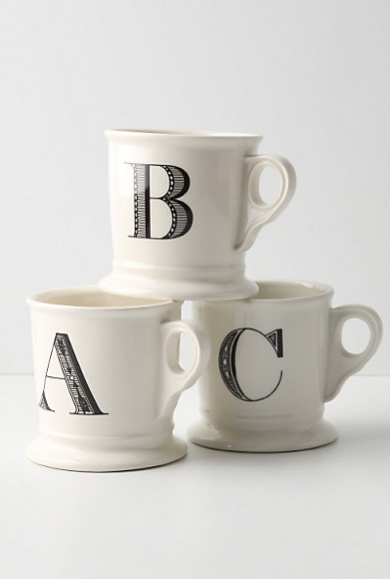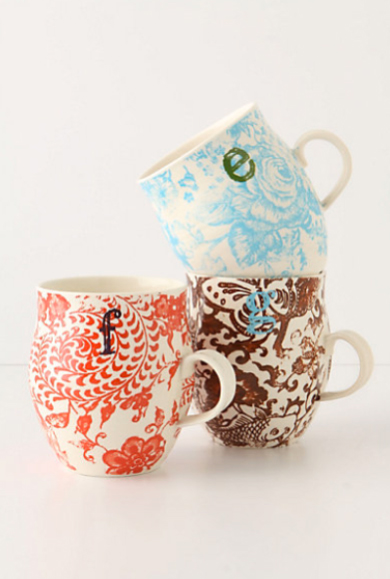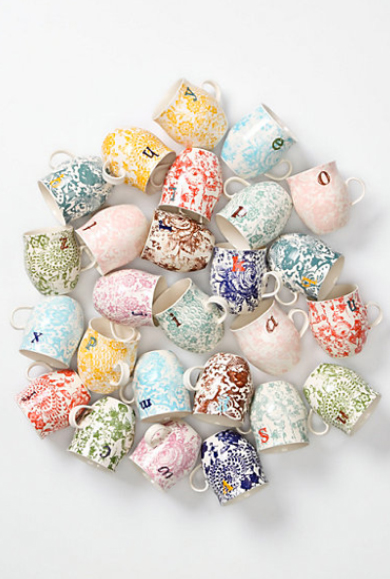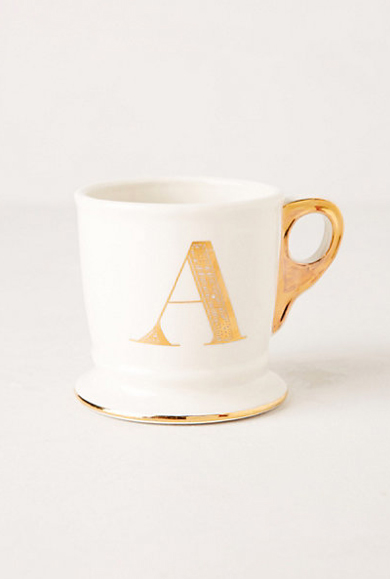
Would you like a cup of T?
Alphabetic beauty, featuring monochromatic or golden letters, colourful & playful patterns either handrown letters or existing typography for mornings of everyday life. Anthropologie offers fresh mugs take on the classic tradition, and here is a small presentation of those, but you can find all the details here.